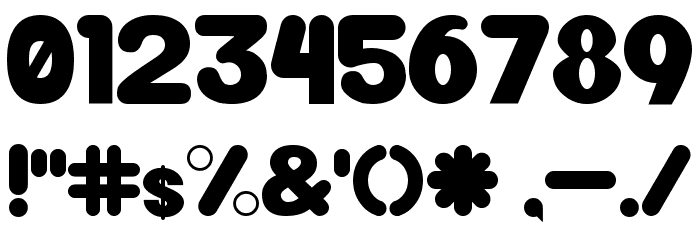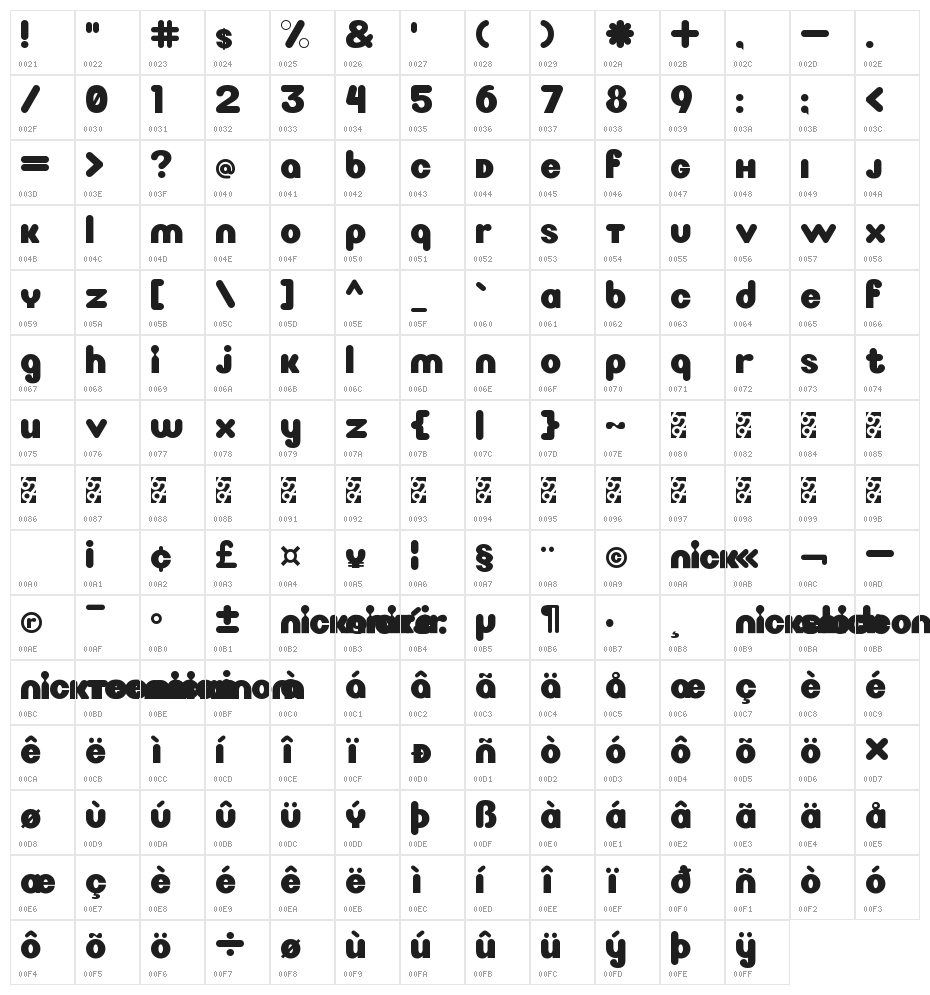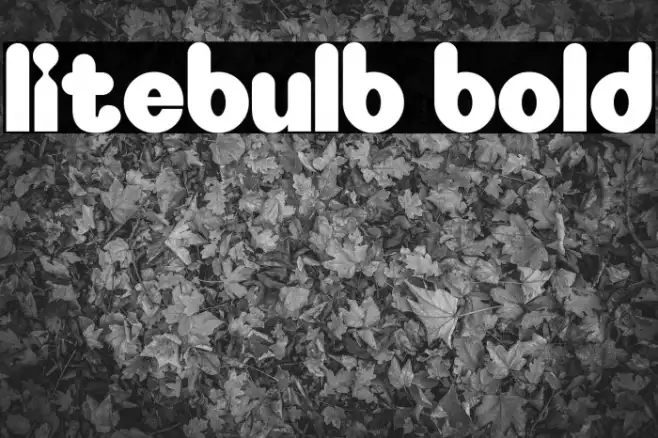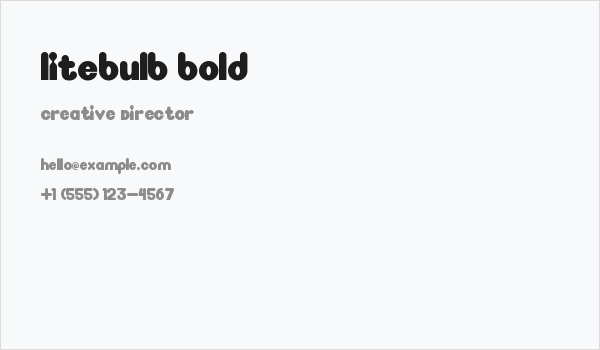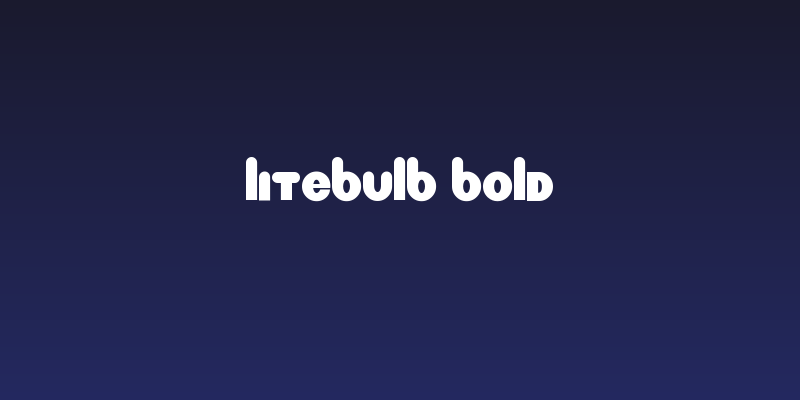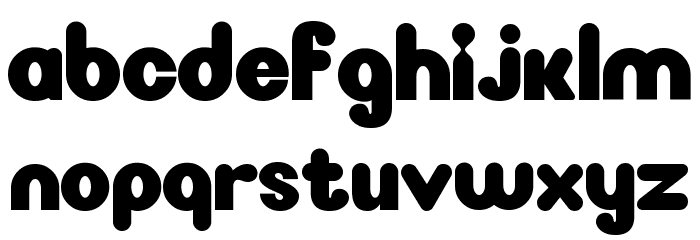
Litebulb Bold Font
Litebulb Bold Description
This font features a bold and playful design with rounded edges and a distinct geometric style. The characters are thick and uniform, creating a strong visual impact. The rounded terminals and consistent stroke width give it a friendly and approachable appearance. The font maintains a modern aesthetic with a touch of retro influence, making it versatile for various design applications. Its boldness ensures readability while adding a unique character to any text. The numbers and special characters follow the same design principles, ensuring consistency throughout.
| Proposed Projects | Ideal for branding, posters, children's books, and playful graphic designs. |